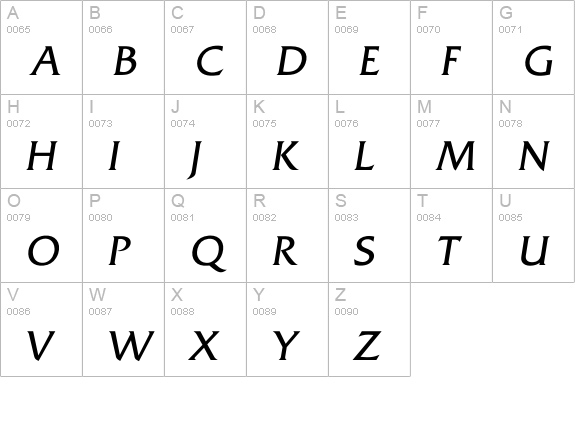
Iquadrat Light Font Details
Iquadrat Light is a refined, elegant variant in the Iquadrat typeface family \xE2\x80\x94 well suited to elegant body text, refined sub-headings, and luxury branding.
Iquadrat Light font is a stunning typeface that exudes elegance and sophistication. With its sleek and modern design, this font is perfect for adding a touch of class to any project. The letterforms are beautifully crafted, with clean lines and precise curves that create a sense of balance and harmony. What sets Iquadrat Light font apart is its versatility. It can be used for a wide range of applications, from branding and logo design to editorial layouts and website headers. Whether you're working on a corporate presentation or a personal project, this font will elevate your design and give it a polished and professional look. One of the best things about Iquadrat Light font is that it is free. Yes, you read that right - this amazing font is freely available to download at FontsMarket.com. This means that you can use it in your projects without worrying about any licensing fees or restrictions. It's a fantastic opportunity to enhance your designs without breaking the bank. So why wait? Download Iquadrat Light font today and unlock a world of creative possibilities. Whether you're a professional designer or a hobbyist, this font will help you bring your ideas to life with style and flair. Don't miss out on this amazing font - get it now and start creating stunning designs that will leave a lasting impression.